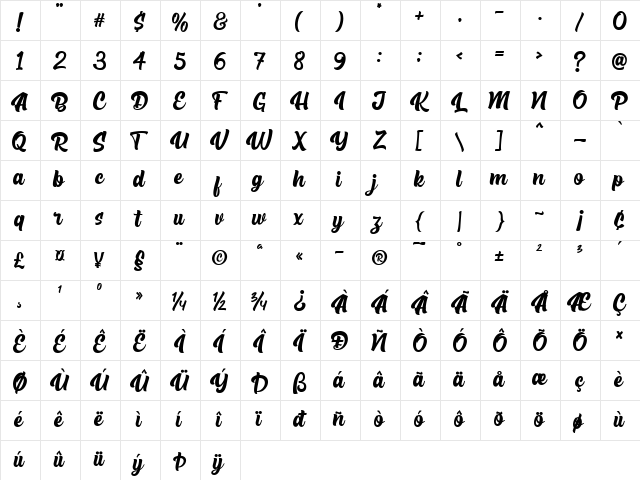
The Rughton Script Regular
| Foundry | Figuree Studio |
| Designer | Icep Anwar Fadhil |
Design Context for The Rughton Script Typeface
The Rughton Script brings a calligraphic fluidity to the page — its connecting strokes and expressive curves give it an unmistakably human quality.
Font Pairing: Combine The Rughton Script with a simple geometric sans for maximum contrast — the tension between flowing curves and clean structure is a classic typographic pairing.
Pro Tip: Use The Rughton Script for short runs of text — names, titles, or taglines. Extended body copy in script faces tires the eye quickly.